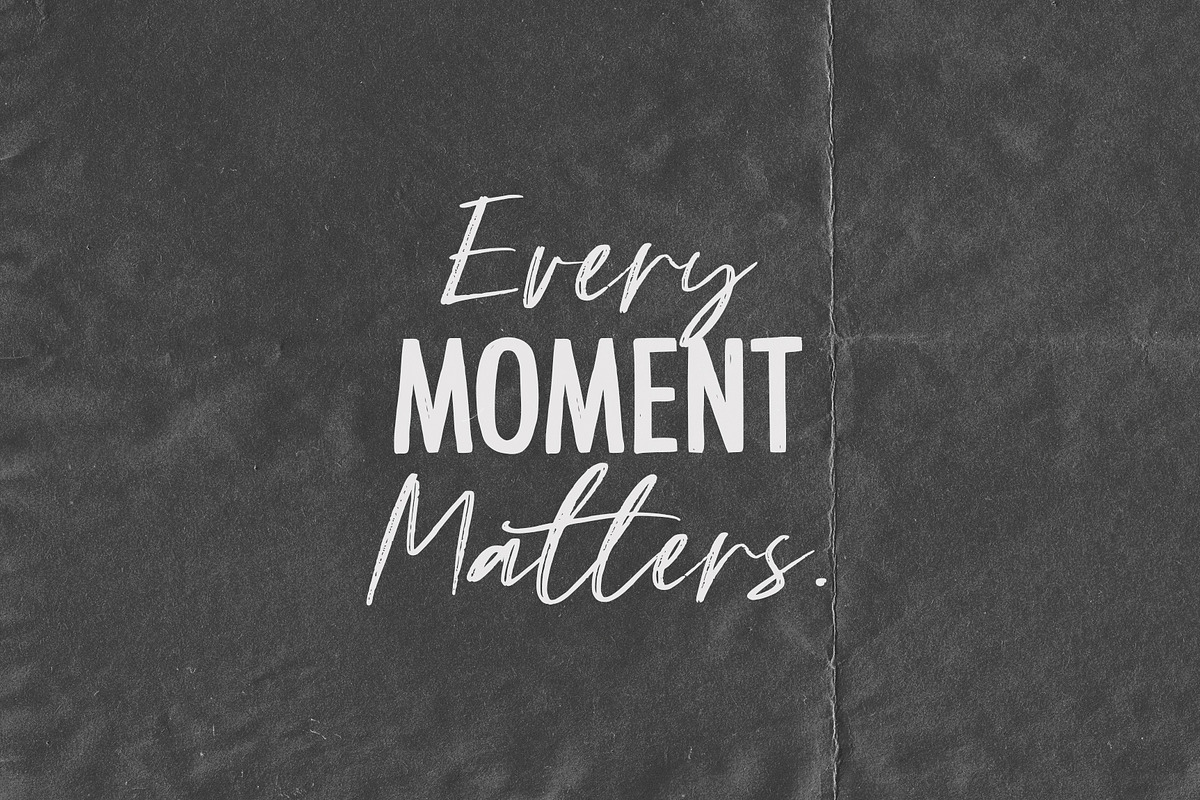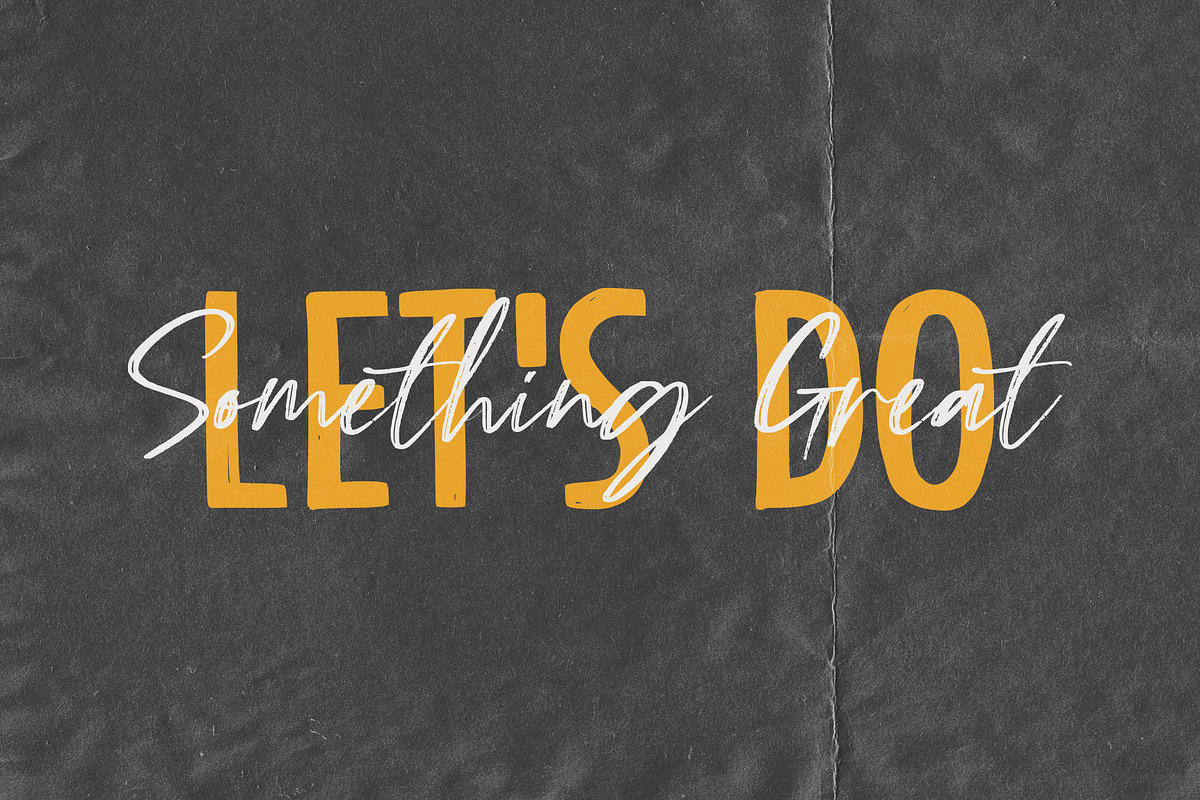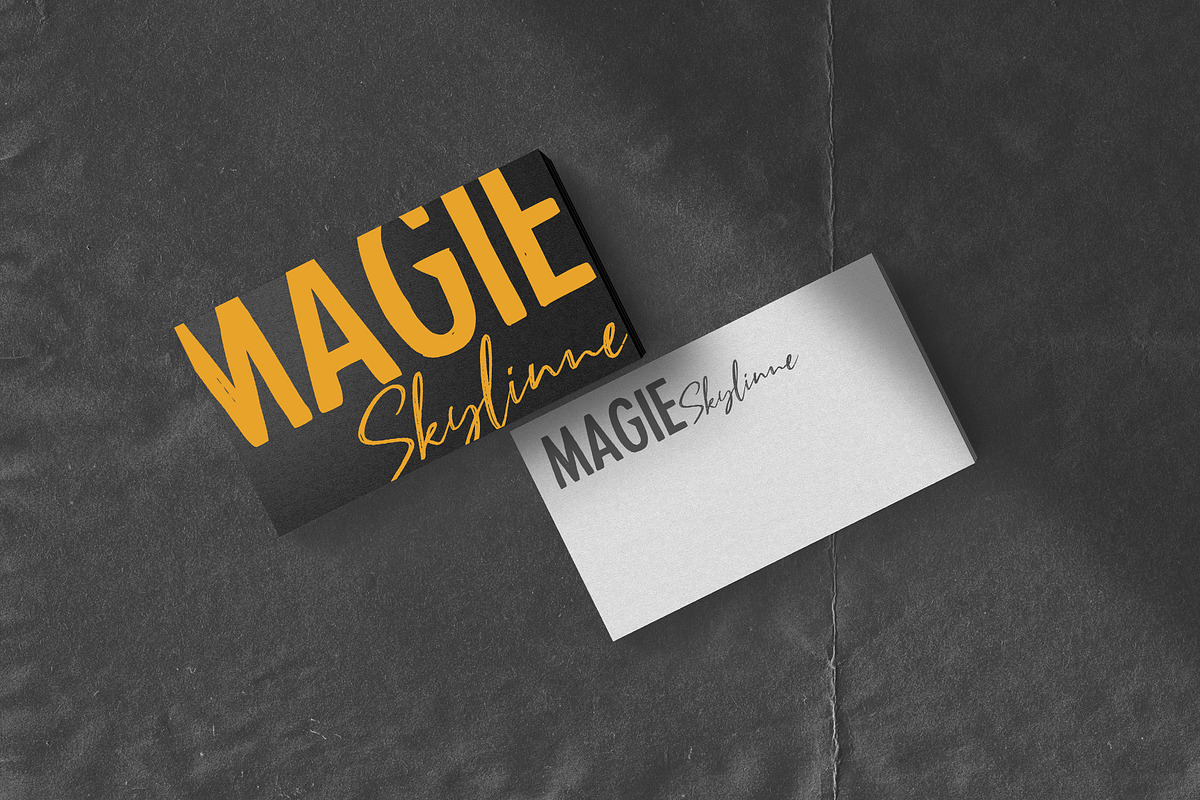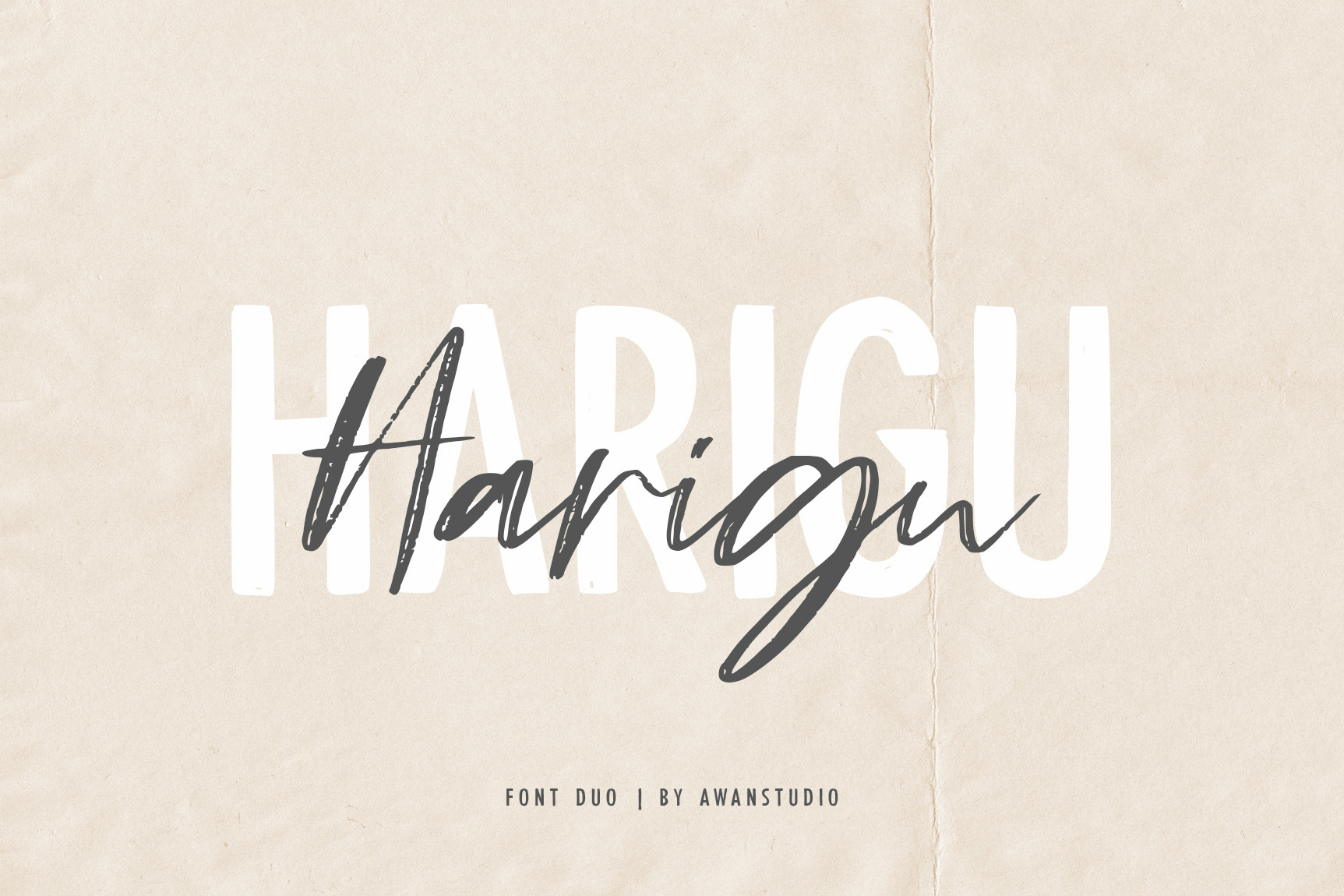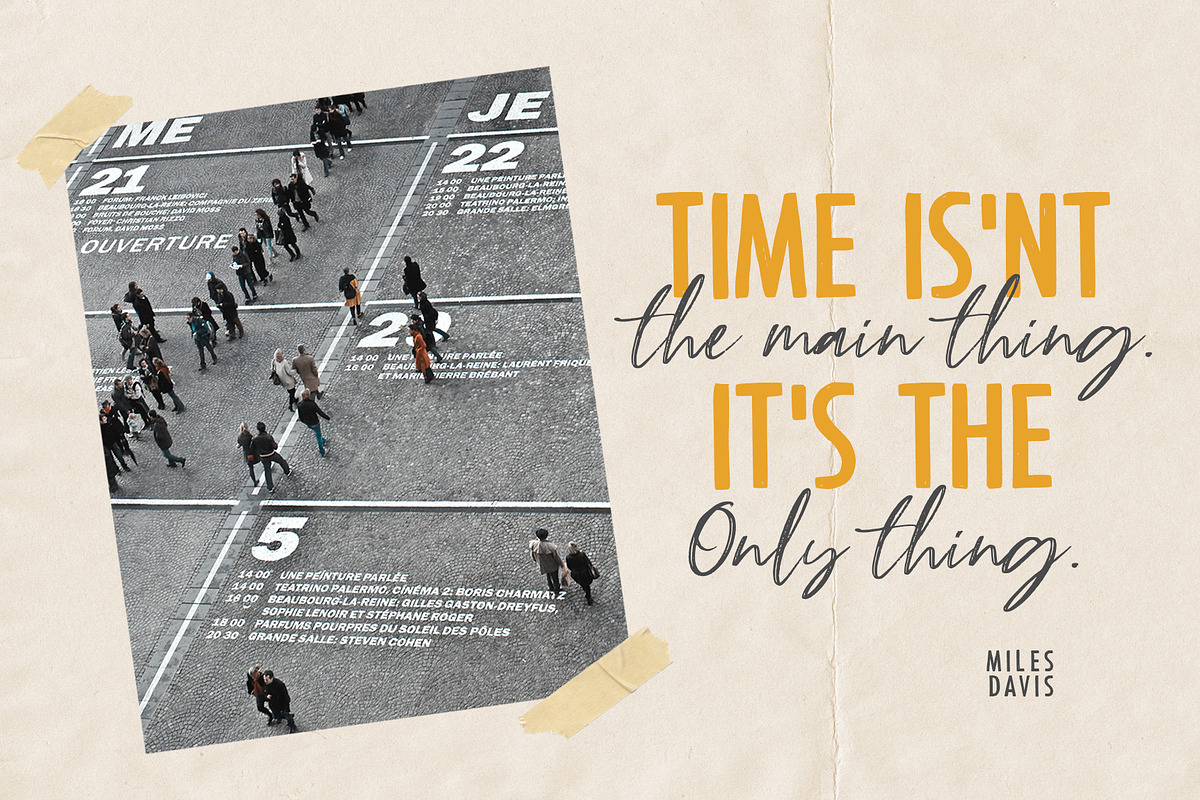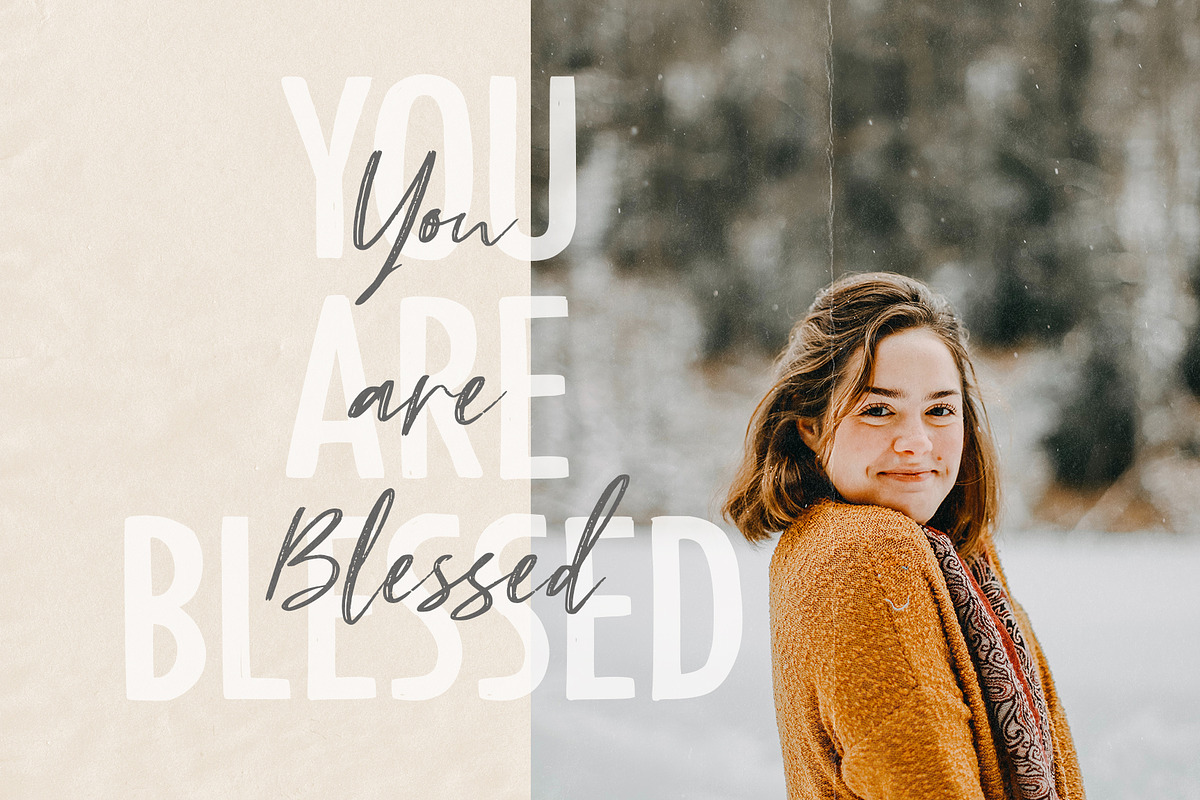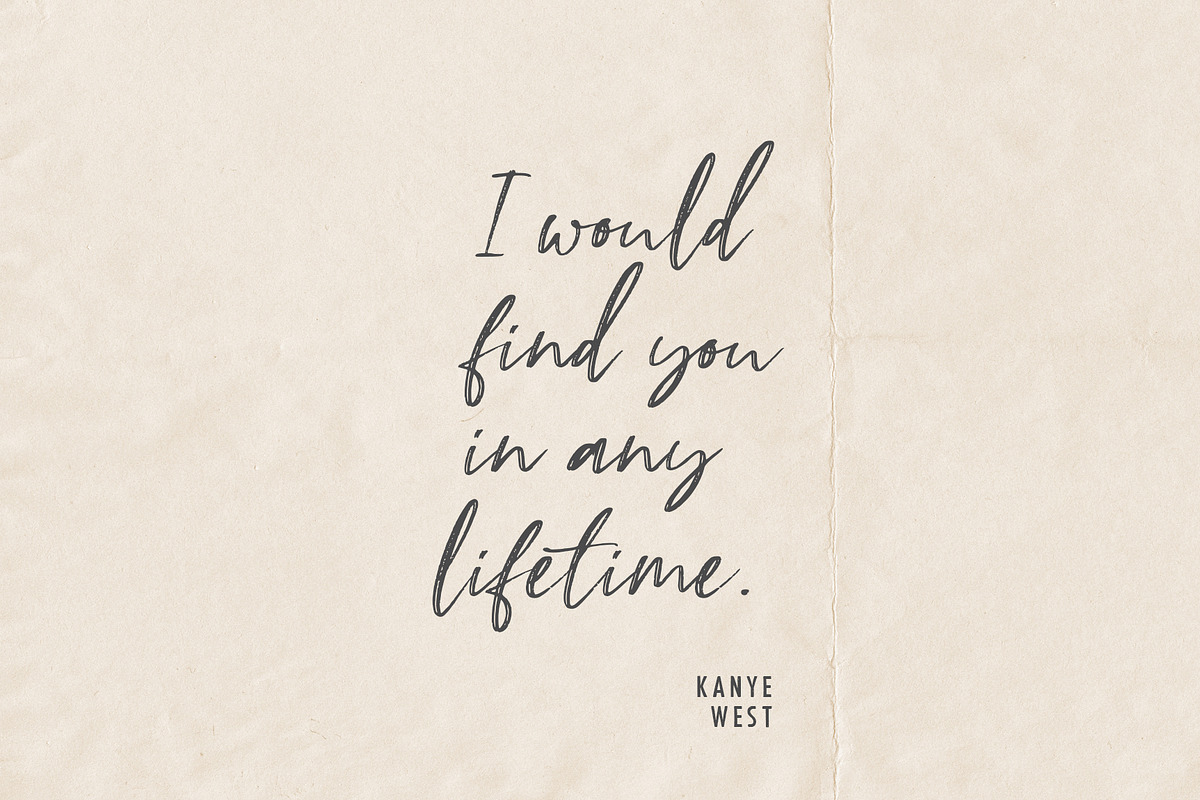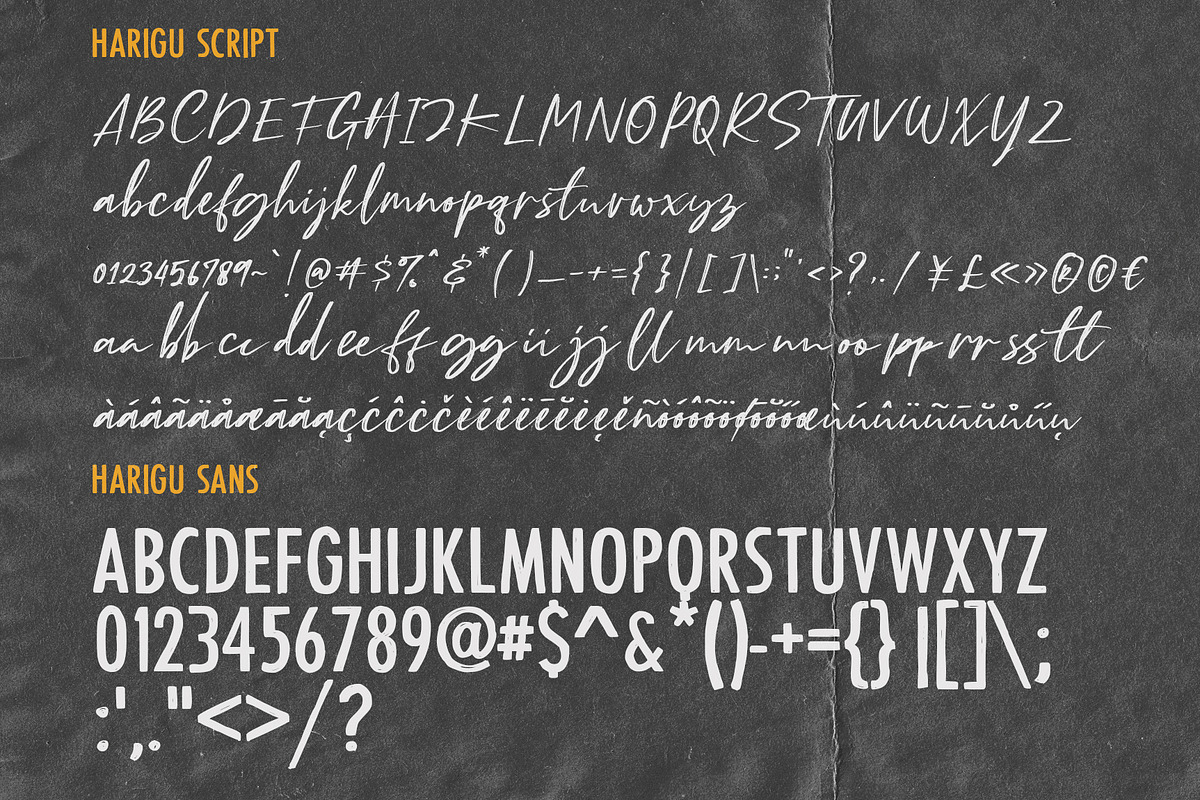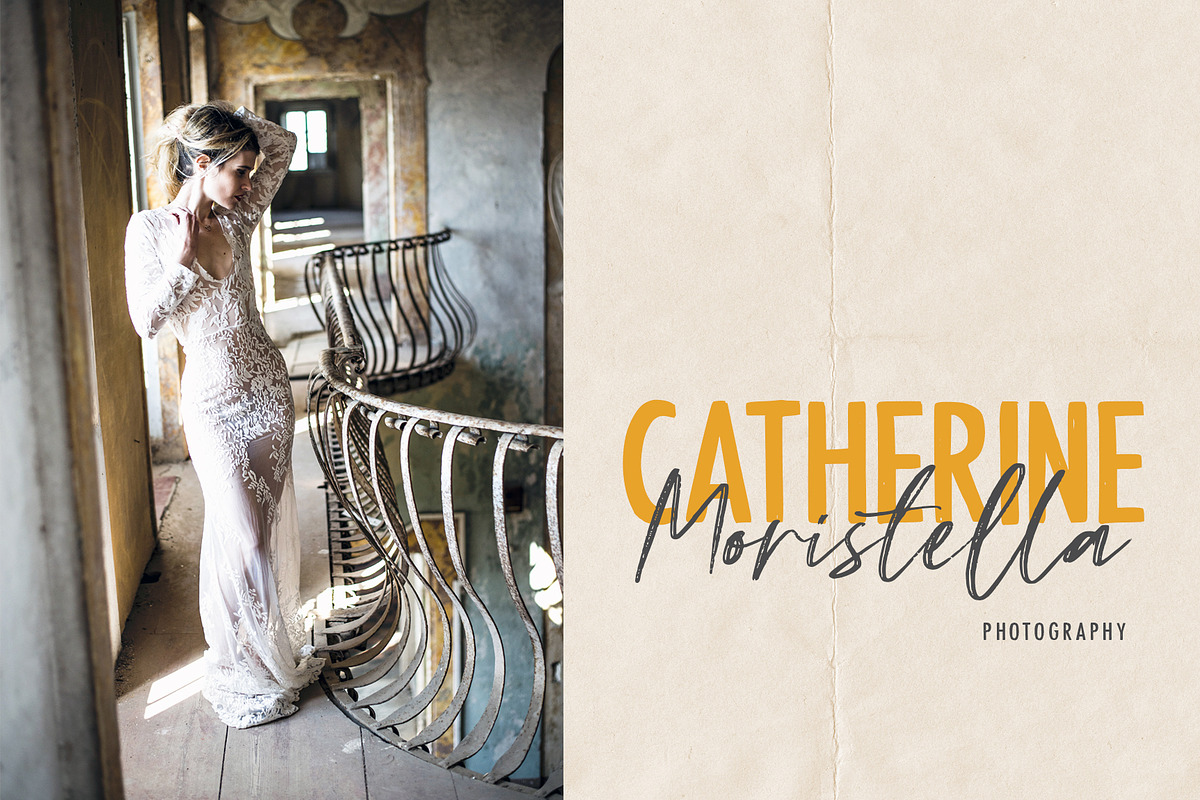
Harigu | Font Duo
Introducing Harigu! a textured handwritten script and sans font. It allows you to create stunning and easy hand-lettering in an instant. Ideal for the logo, quotes, product label/packaging, fashion, letter, advertising, poster, merchandise, greeting cards, etc